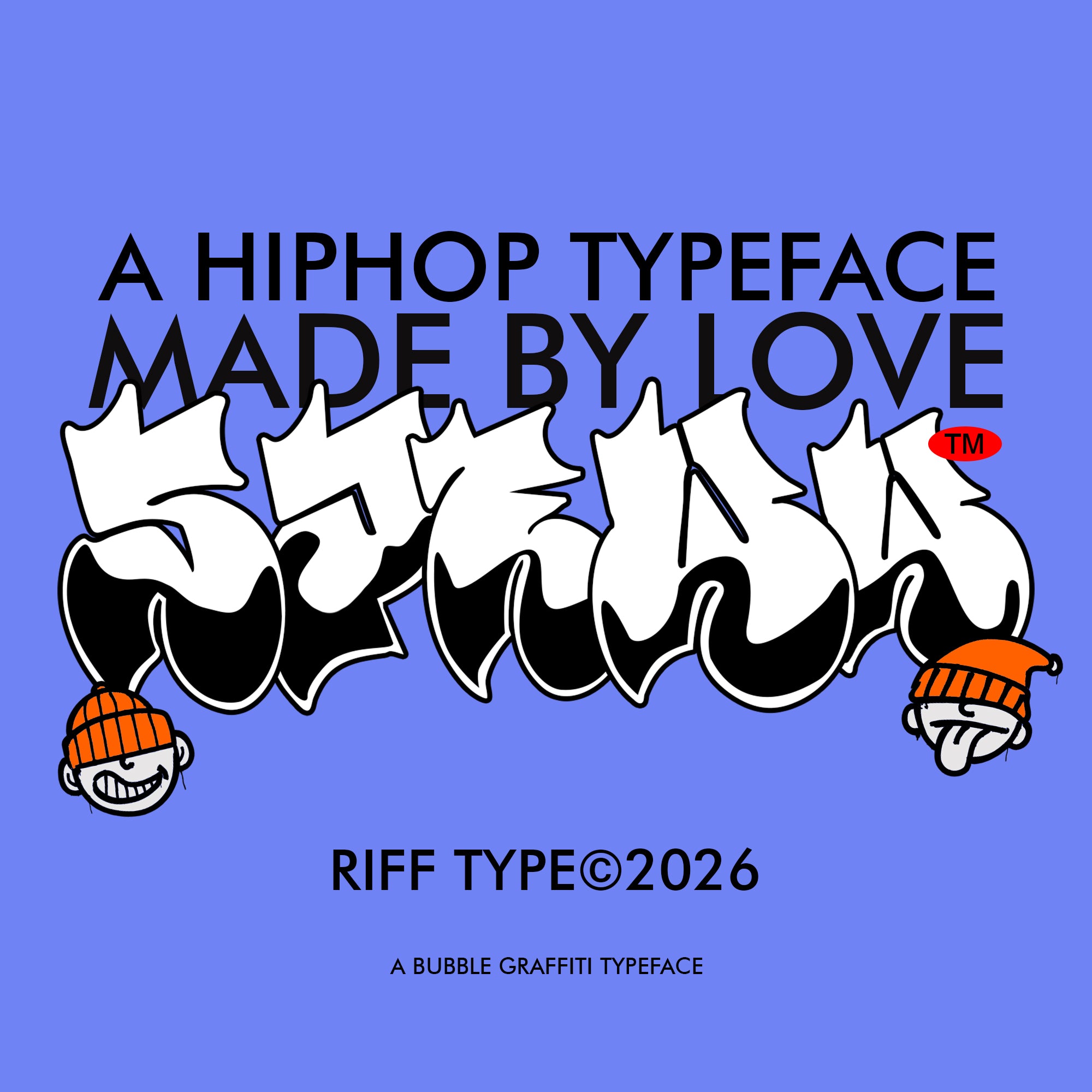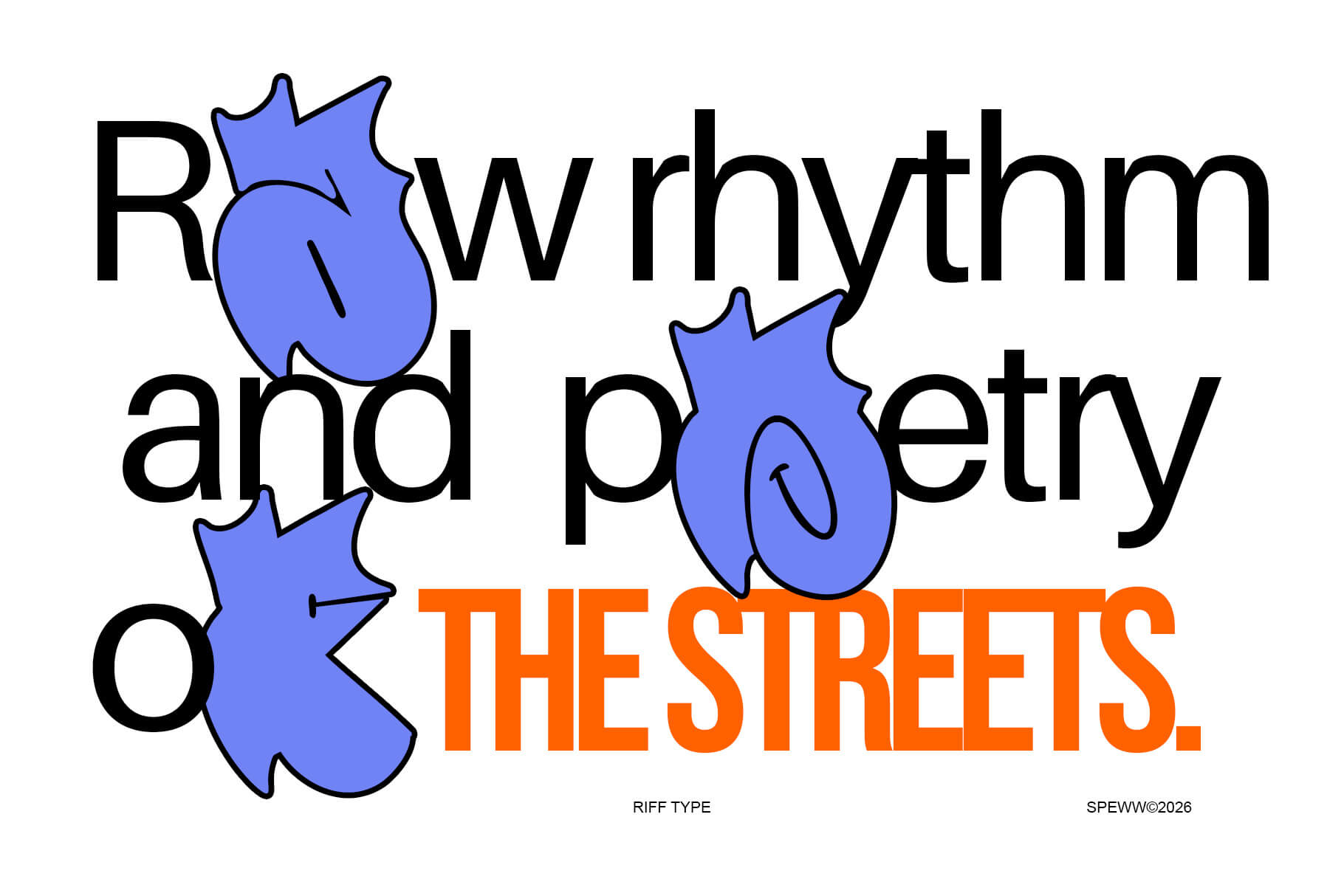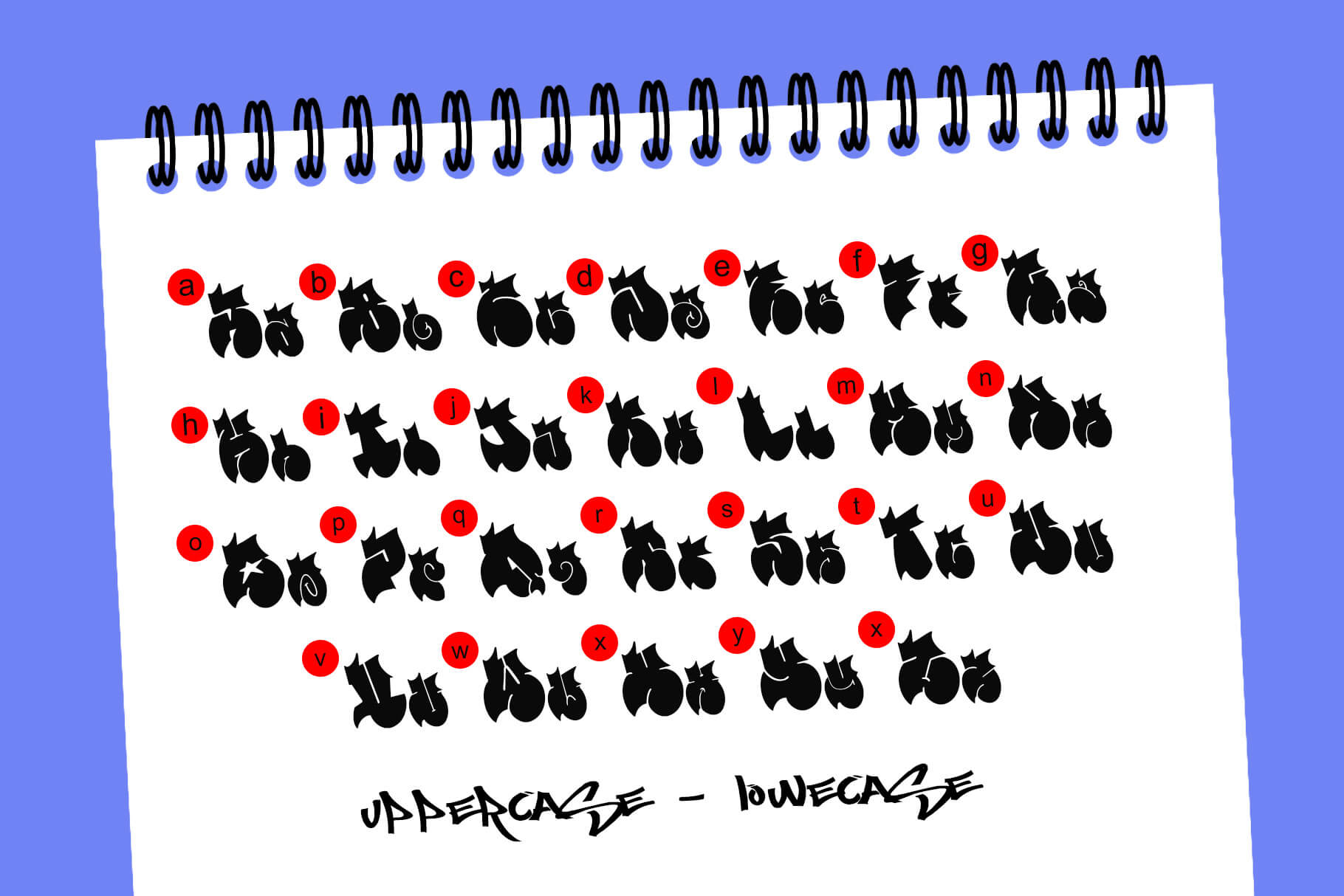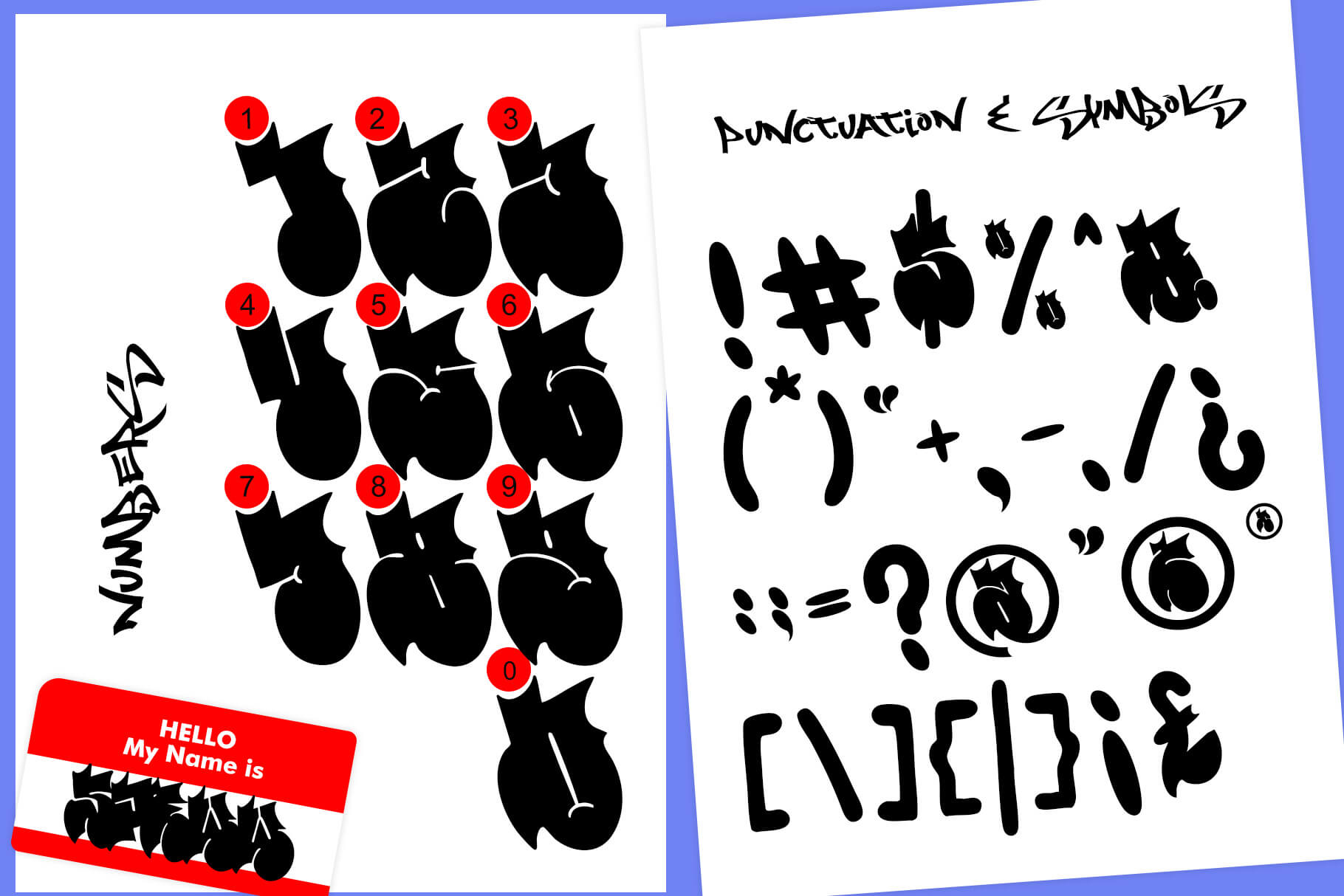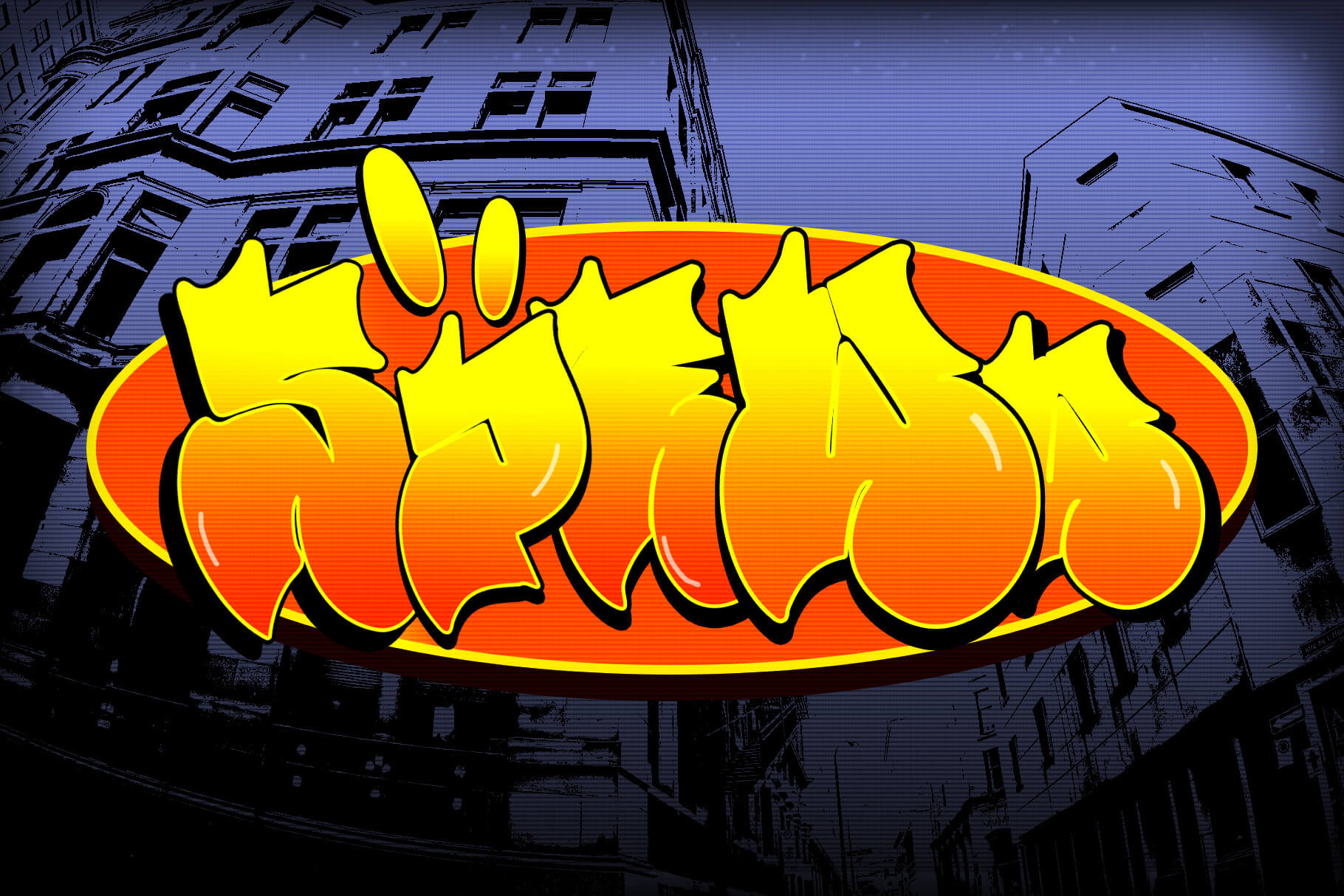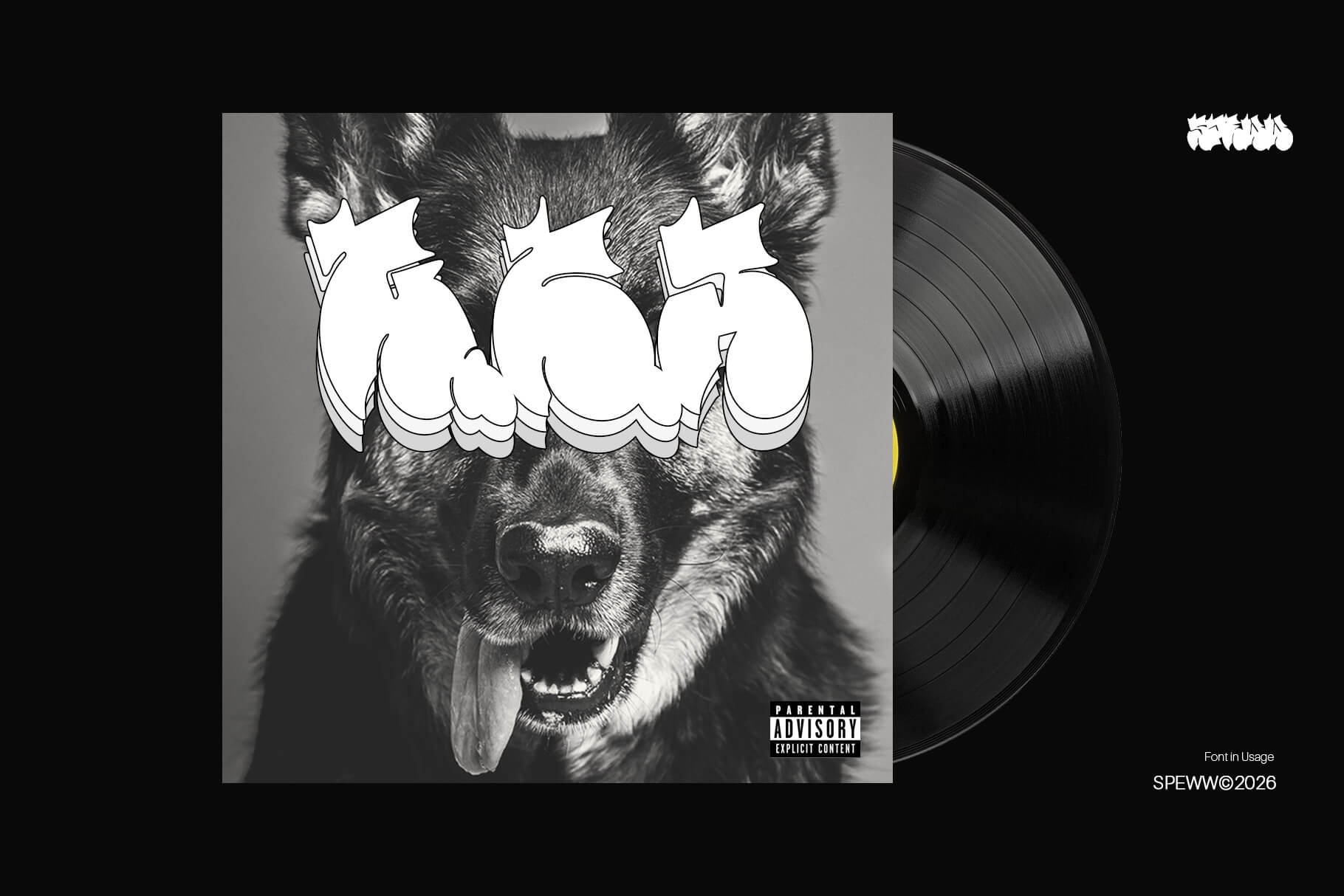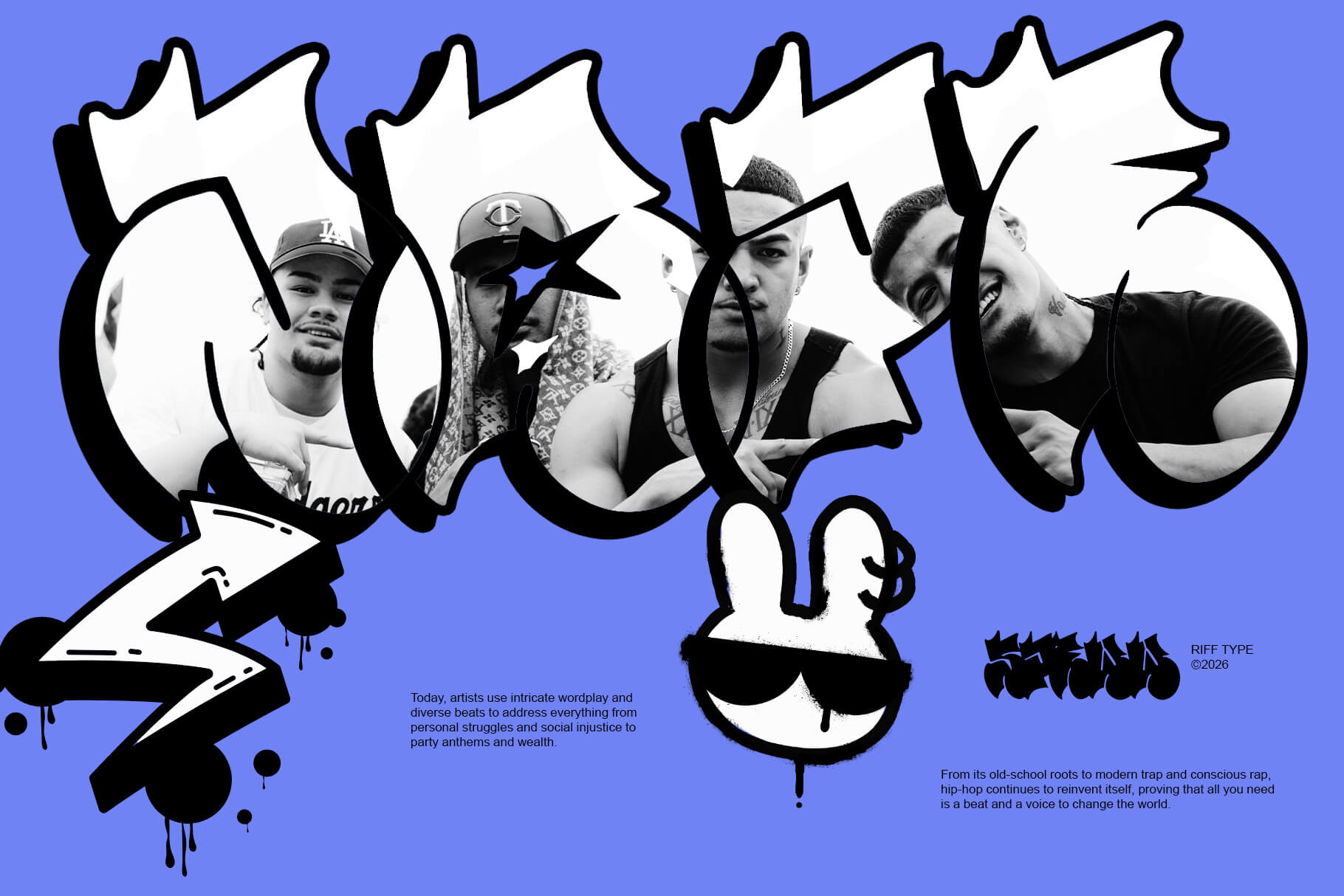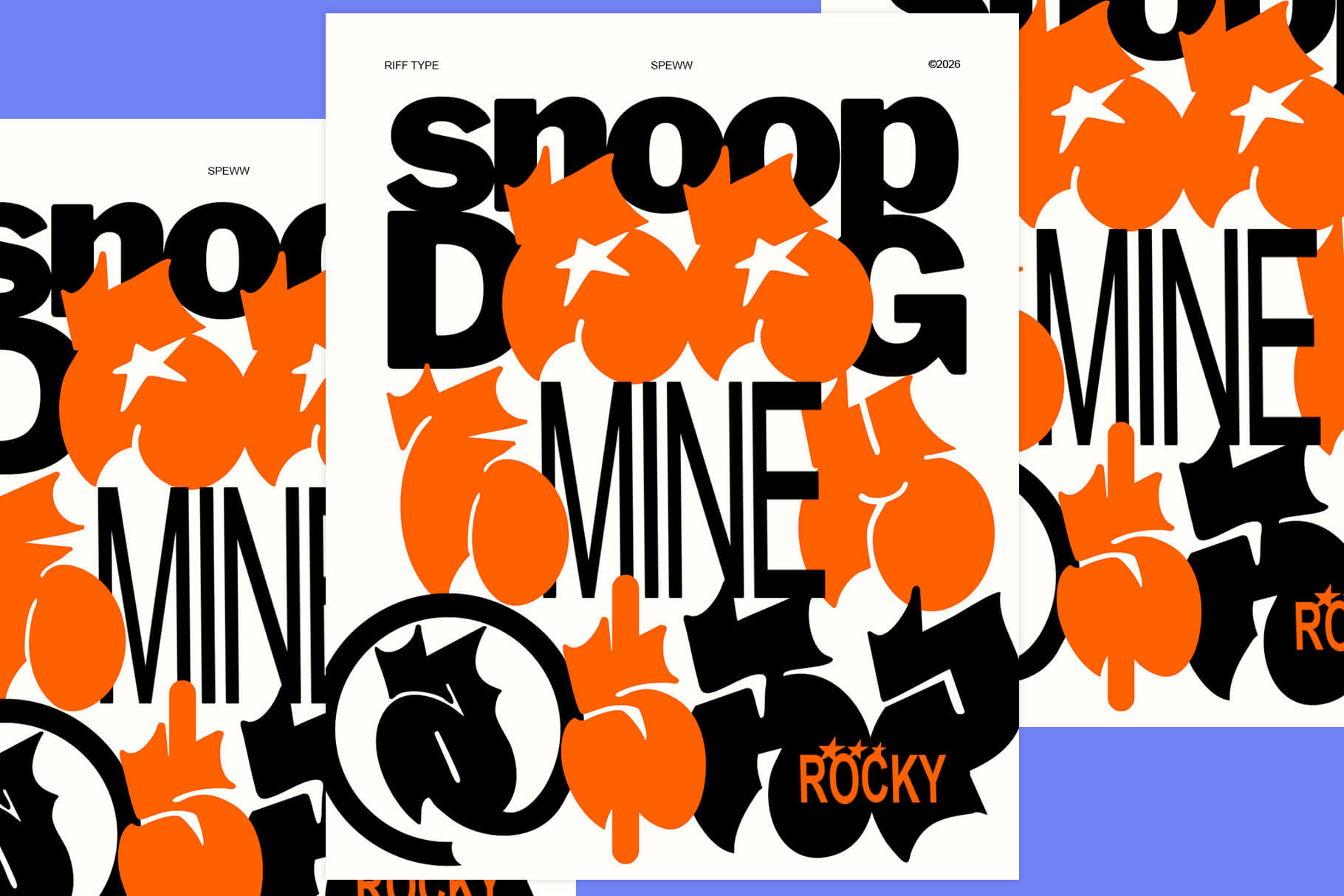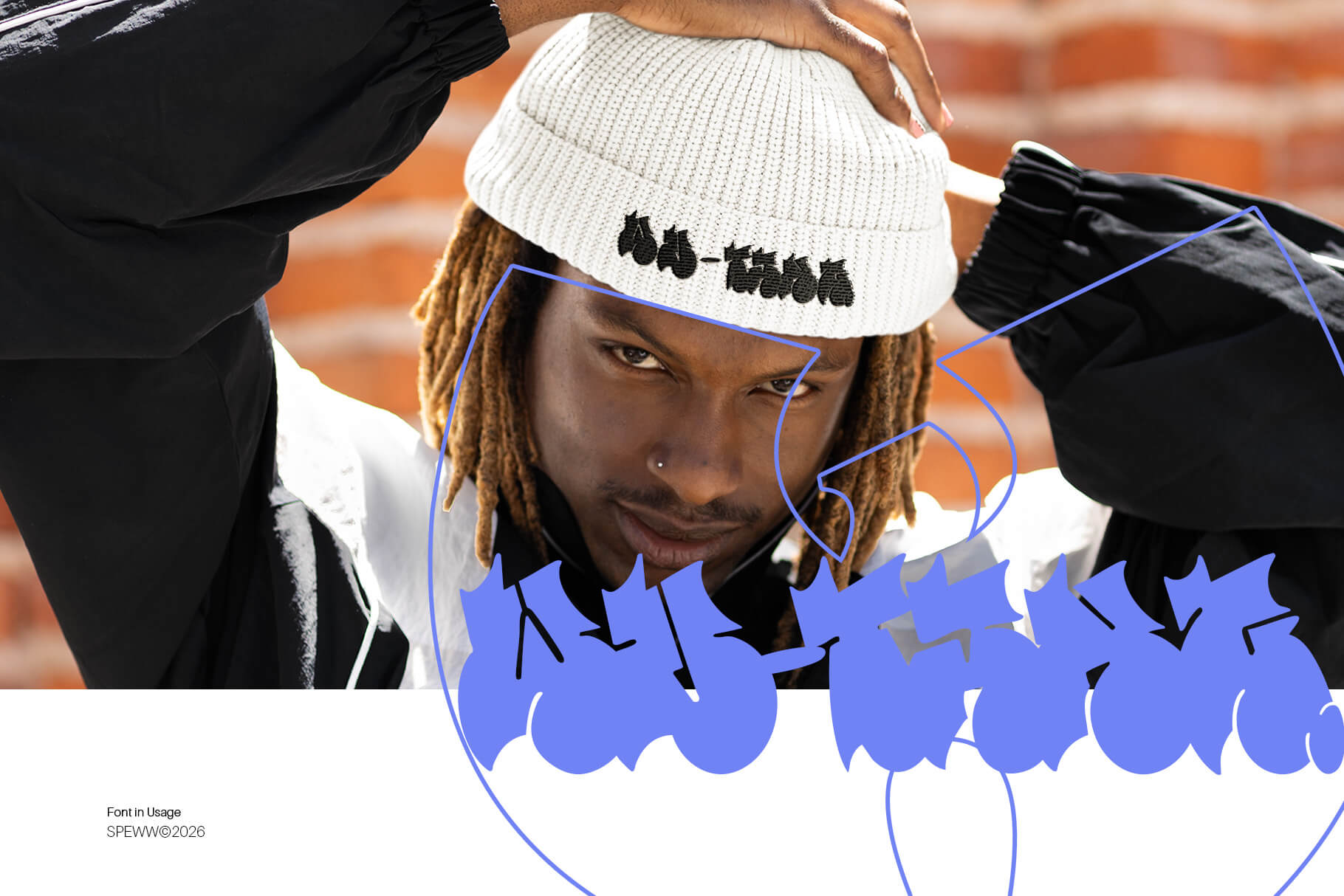
Speww - Explosive Hip-Hop Bubble Graffiti Font
Speww is a heavy-hitting, maximalist display typeface that brings the raw, unfiltered energy of underground street art straight to the digital canvas. Blending the volatile volumes of classic graffiti throw-ups with sharp, explosive, thorn-like accents, this font is engineered to break boundaries, disrupt spaces, and drop an instant subcultural statement.
It feels less like a traditional digital font and more like fresh, dripping spray paint applied in a hurry under the cover of night.
Speww is a bold, bubble-style display font featuring graffiti throw-up shapes with sharp, thorn-like accents. The package includes TTF, OTF, WOFF, and WOFF2 file formats.